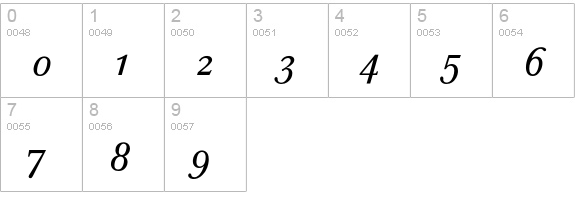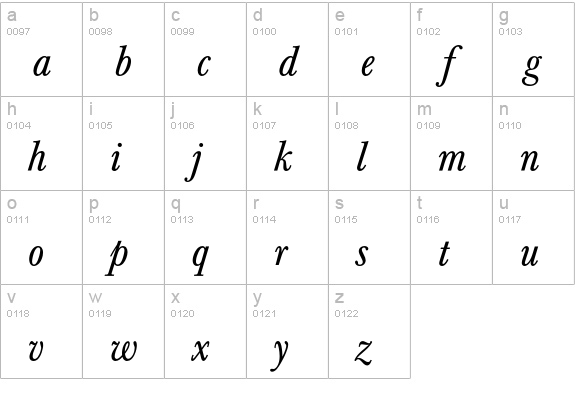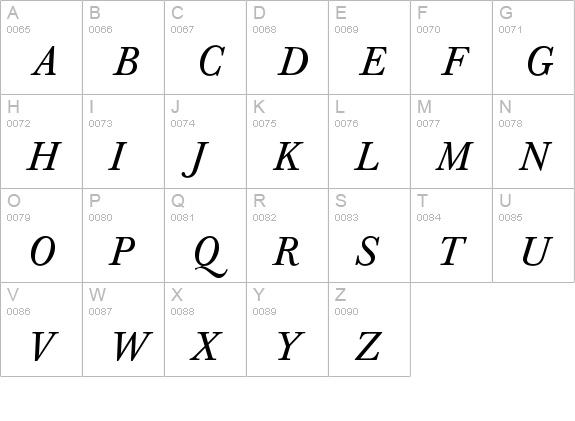
Baskerville Expert Italic OsF Font Details
Baskerville Expert Italic OsF is a distinctive, italic variant in the Baskerville typeface family \xE2\x80\x94 well suited to design and typography projects.
Baskerville Expert Italic OsF font is a sophisticated and elegant typeface that exudes class and refinement. Its slanted and flowing italics add a touch of flair to any design project, making it perfect for conveying a sense of sophistication and style. The font's expertly crafted letterforms and delicate serifs give it a timeless appeal that is sure to make a lasting impression. Best of all, Baskerville Expert Italic OsF font is completely free to download at FontsMarket.com. Whether you are working on a professional project or simply looking to elevate your personal designs, this font is a valuable addition to your typography arsenal. Don't miss out on the opportunity to enhance your work with this exquisite and versatile typeface – download Baskerville Expert Italic OsF font today and take your designs to the next level.